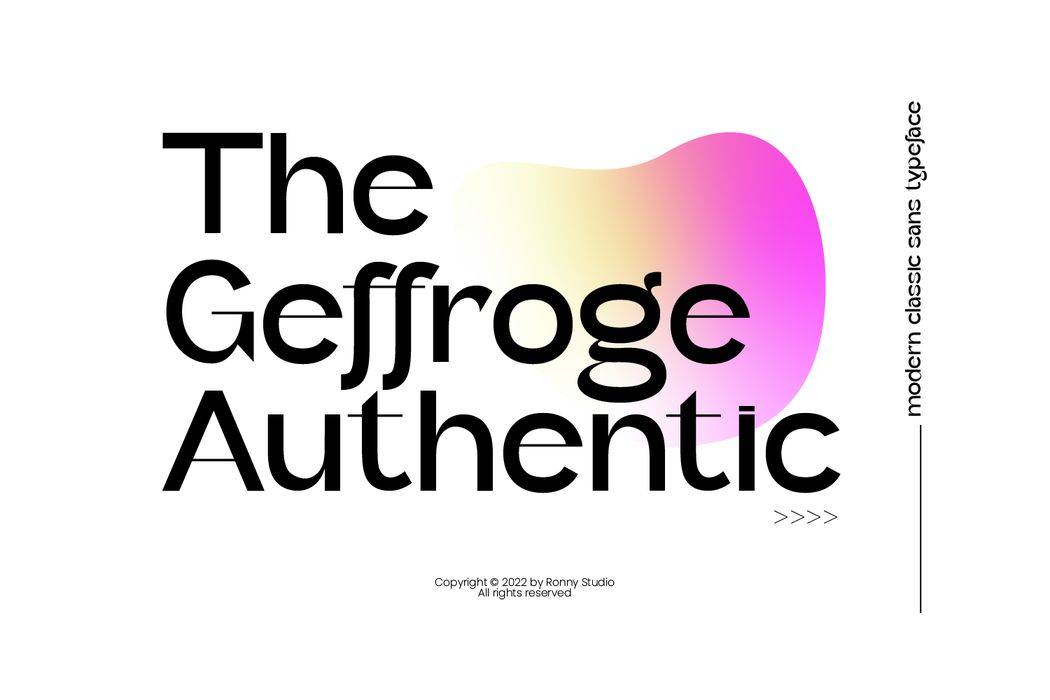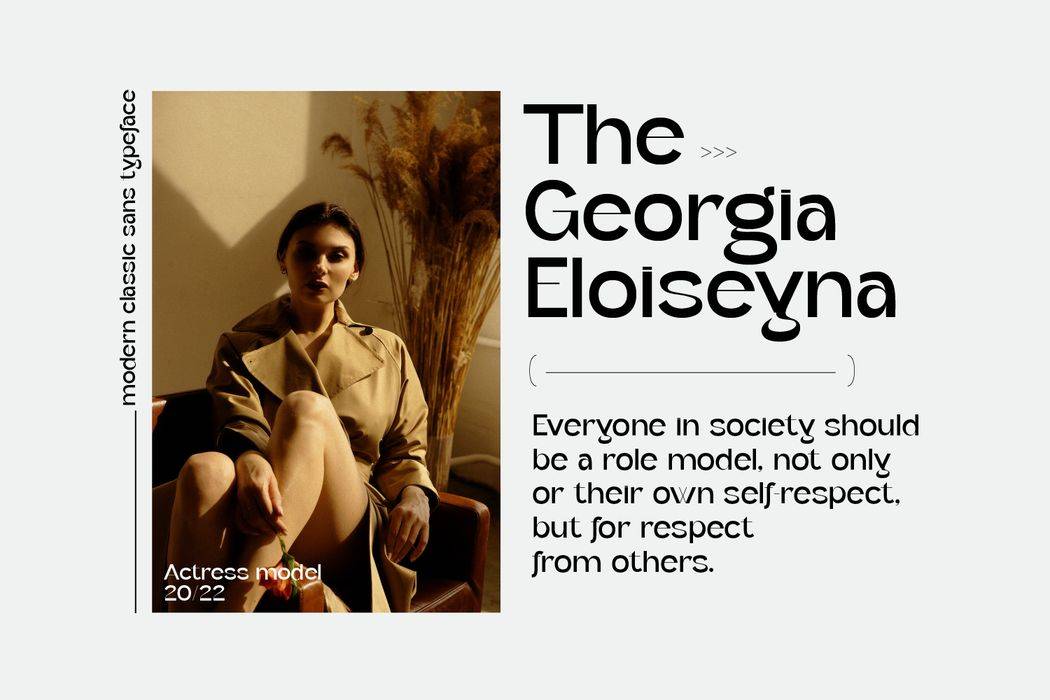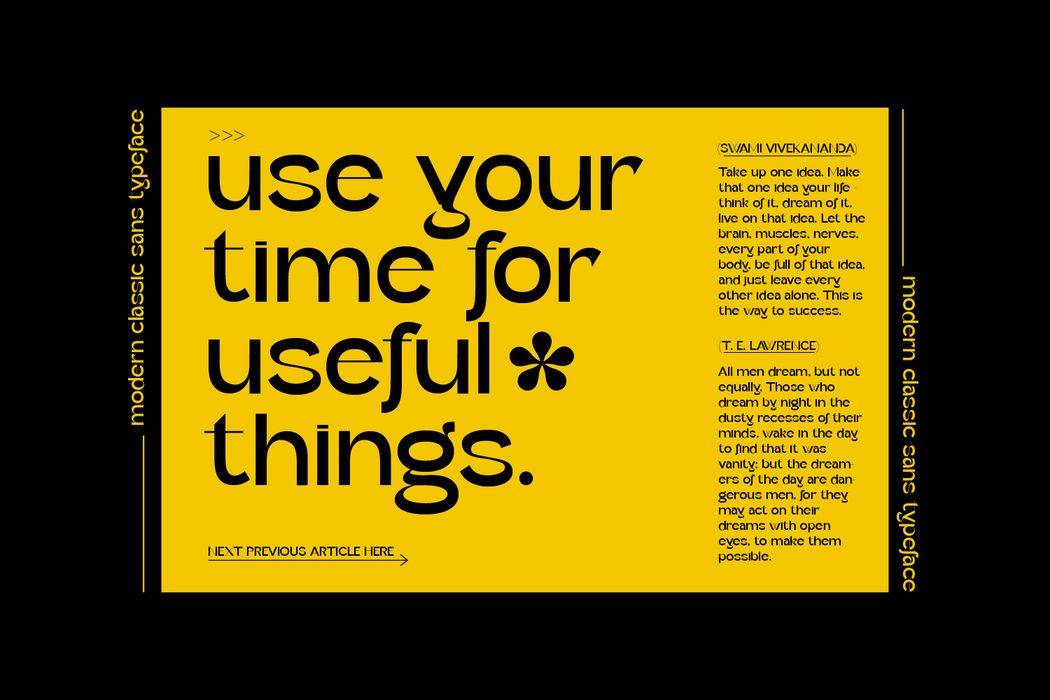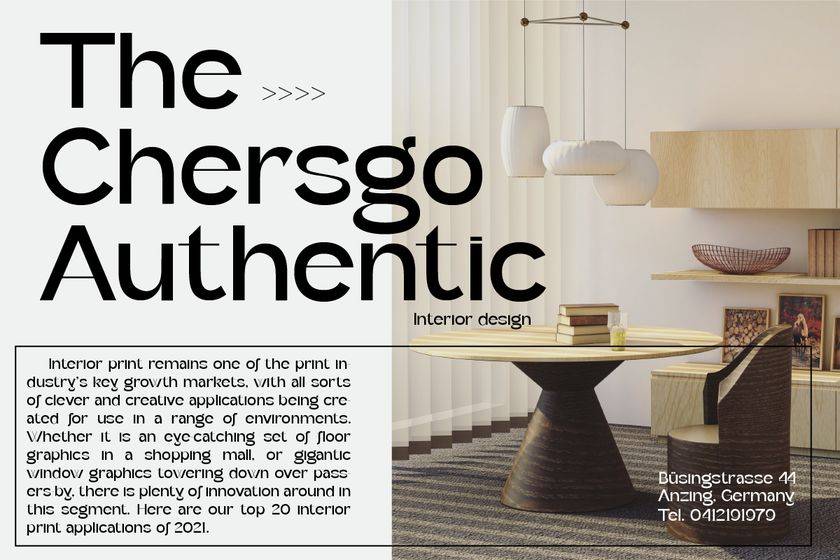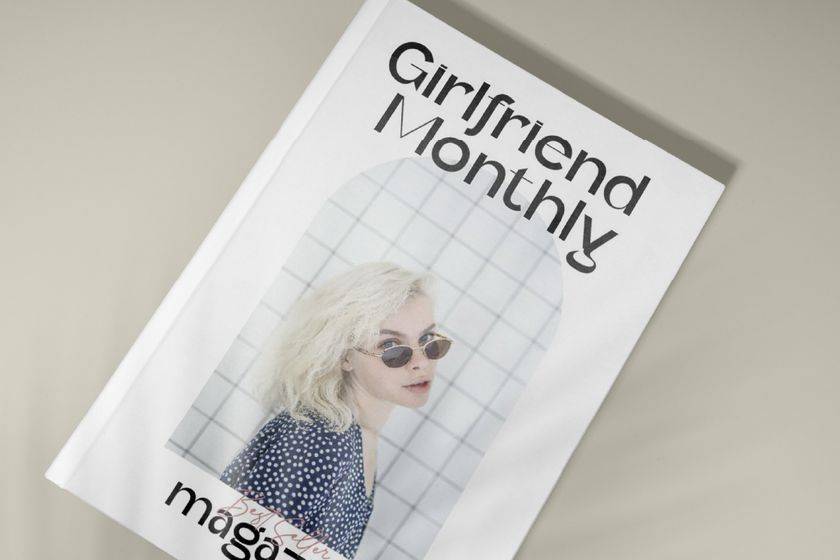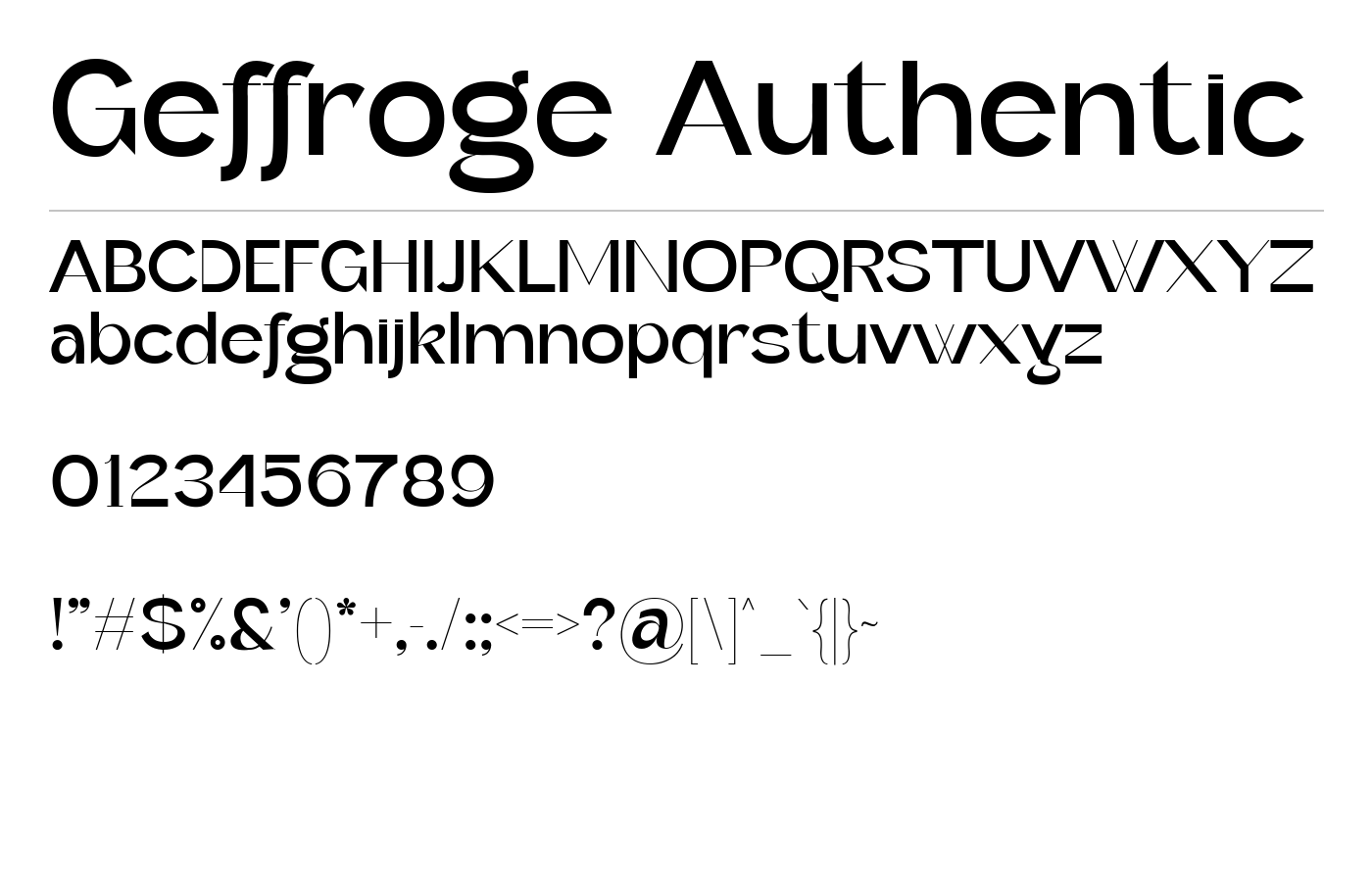
Geffroge Authentic is a distinctive sans serif font featuring a modern, geometric design with high contrast between thick and thin strokes, giving it a stylish yet approachable feel. Its clean lines and unique letterforms, such as the double-story g and angled strokes on characters like A and V, make it ideal for creative branding, editorial headlines, and contemporary packaging that seeks a bold, authentic character. Perfect for designs needing a balance of elegance and modernity, it works well in both print and digital contexts.
Geffroge Authentic Font
About Geffroge Authentic Font